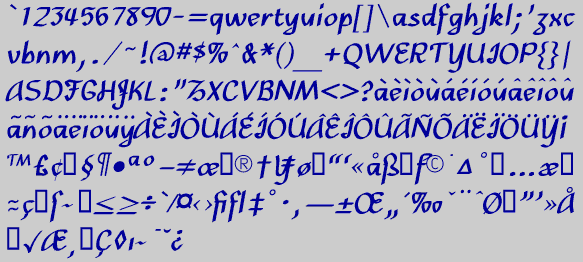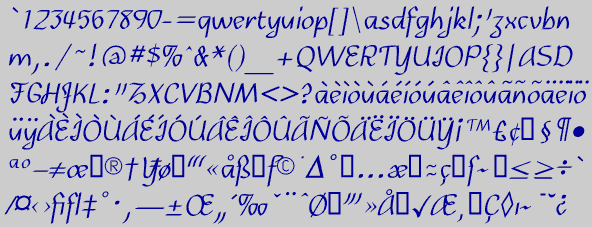
I constructed a number of calligraphic faces using the "Expand Strokes" feature in Fontographer. (I am giving away secrets here.) Instead of constructing the entire path of the letter, one constructs a line which a calligraphic pen will follow. Then one sets the size and angle of the pen, and from that line a calligraphic font appears. Of course, the quality of the end product depends on the quality of the original line--garbage in, garbage out.
Handana is an informal cursive or script face, in which the letters look hand drawn, but in which they do not connect. It has a slight slant to the left, and it is stiffer and less rounded than GretchenHello, which is another informal calligraphic face.